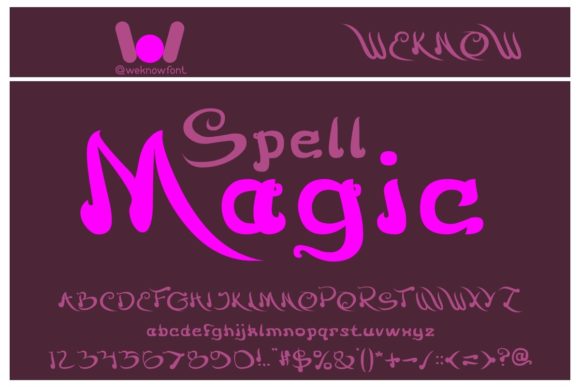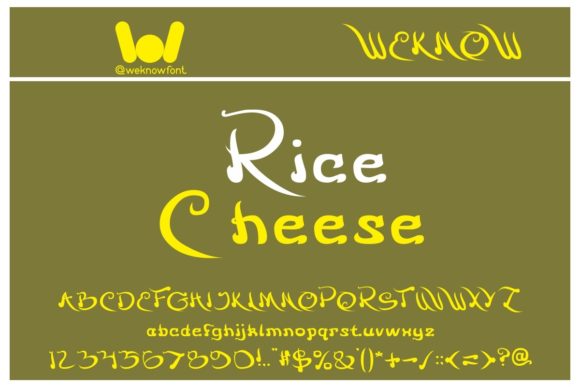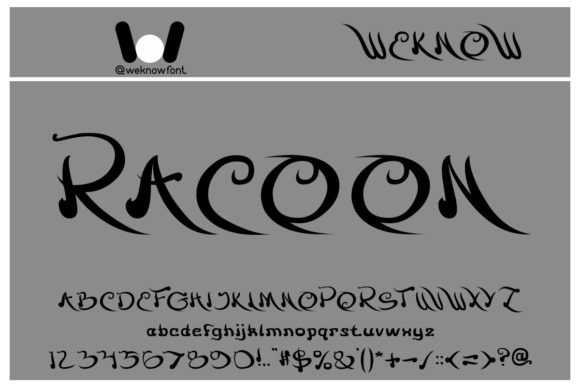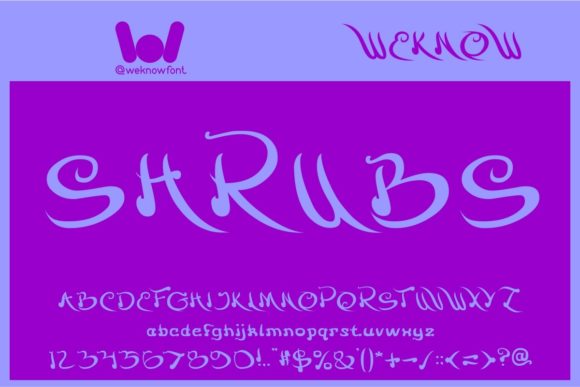
Agriculture Font: Bringing Whimsy to Your Designs
Have you ever sat at your desk, staring at a blank canvas, waiting for that perfect idea to strike? You know, that spark of creativity that makes you jump out of your seat and start brainstorming? For many designers, that moment is what makes all the hard work worth it. And, for some of us, that spark can come from the most unexpected places – like a beautifully crafted font.
Enter the Agriculture Font, a charming and whimsical handwritten font that’s perfect for adding a touch of magic to your designs. Whether you’re creating cartoon characters, children’s games, or just need a lovely font for a special project, the Agriculture Font is an amazing choice. Its unique character and rustic feel make it a valuable addition to any designer’s toolkit, allowing you to bring a sense of personality and charm to your work.
Agriculture Font Key Features
- Font Family: Agriculture Font is a custom-designed font family that includes multiple weights and styles, making it suitable for various typography needs.
- Size: The font family includes 6 weights, ranging from Thin (100) to Black (900), providing flexibility for designers to choose the perfect weight for their project.
- Resolution: The font is designed to work well at various resolutions, including 72 dpi, 144 dpi, and 300 dpi, making it suitable for both digital and print applications.
- Unique Characteristics: Agriculture Font features a unique, hand-drawn design with subtle imperfections, giving it a natural and organic feel that’s perfect for branding and packaging projects.
Agriculture Font Review
Overall, I found the Agriculture Font to be a solid addition to any design project, particularly those focused on rural or environmental themes. ✨ Here are some of its standout features:
- Unique aesthetic: The font’s blend of modern and rustic elements gives it a distinctive look that’s sure to grab attention.
- Legibility: The font is surprisingly clear and easy to read, even at smaller font sizes.
- Customizability: The font comes with a range of styles and weights, making it easy to adapt to different design needs.
- Limited character set: The font may not include all the characters you need for certain languages or special characters.
- Not ideal for body text: While the font is great for headings and titles, it may not be the best choice for large blocks of body text.
Overall, I’d say the Agriculture Font is a great choice for designers looking to add some personality to their projects. While it may not be perfect, its unique aesthetic and customizability make it a valuable addition to any design toolkit.
Tips: Use the Agriculture Font to create eye-catching titles and headings for your agricultural-themed designs.
Tips: Use the Agriculture Font to create custom labels and signage for your agricultural products or services.
Tips: Use the Agriculture Font to create professional-looking reports and presentations for your agricultural business.
The Agriculture Font is ideal for:
- Agricultural product labels and packaging
- Farm branding and signage
- Agricultural reports and presentations
- Outdoor advertising and signage
Alternatives to Agriculture Font
Playfair Display is an elegant and luxurious serif font, suitable for high-end branding and sophisticated designs. It is ideal for use in headings and titles where a touch of sophistication is required.
Comparison to Agriculture Font: While Agriculture Font is more rustic and earthy, Playfair Display is refined and polished, making it a better choice for upscale designs.
Carolyna Pro is a modern and elegant sans-serif font, suitable for use in a wide range of designs, from fashion and beauty to luxury and lifestyle. It is ideal for use in headings and titles where a touch of sophistication is required.
Q: What is the recommended font size for using Agriculture Font?
The recommended font size for Agriculture Font varies depending on the context and design requirements. However, as a general guideline, we recommend using font sizes between 12pt and 24pt for body text, and 48pt and 72pt for headings. This will ensure optimal readability and visual impact.